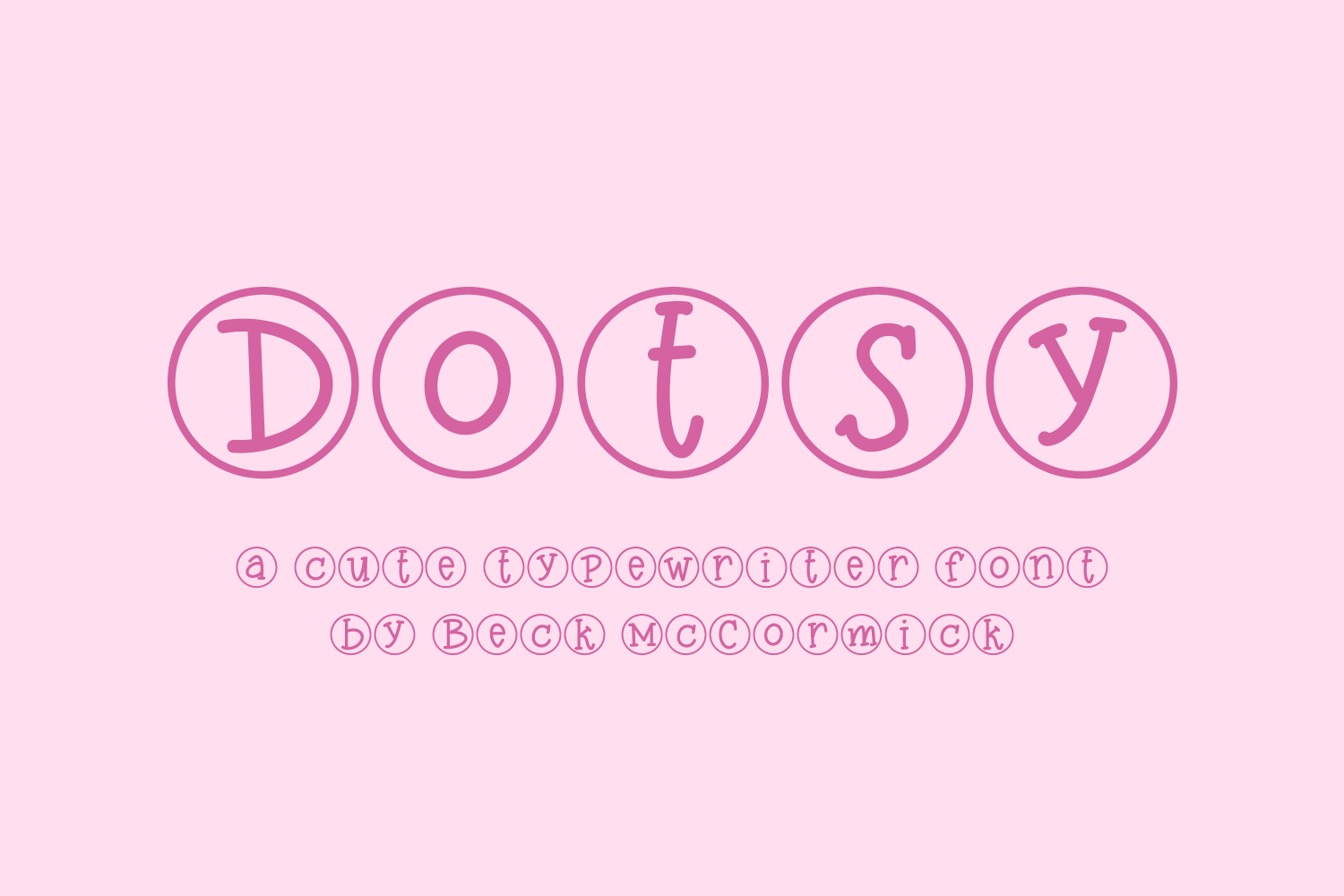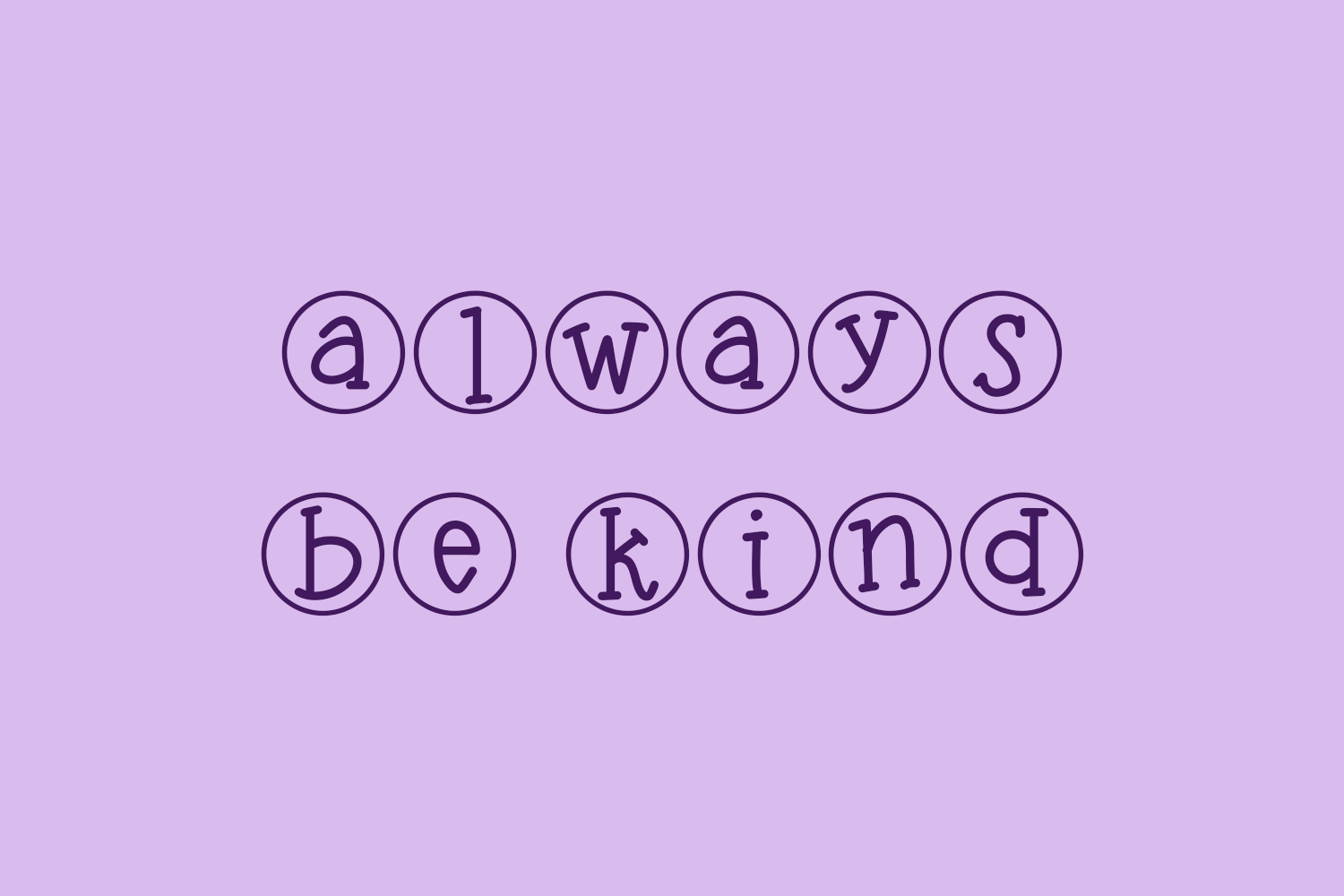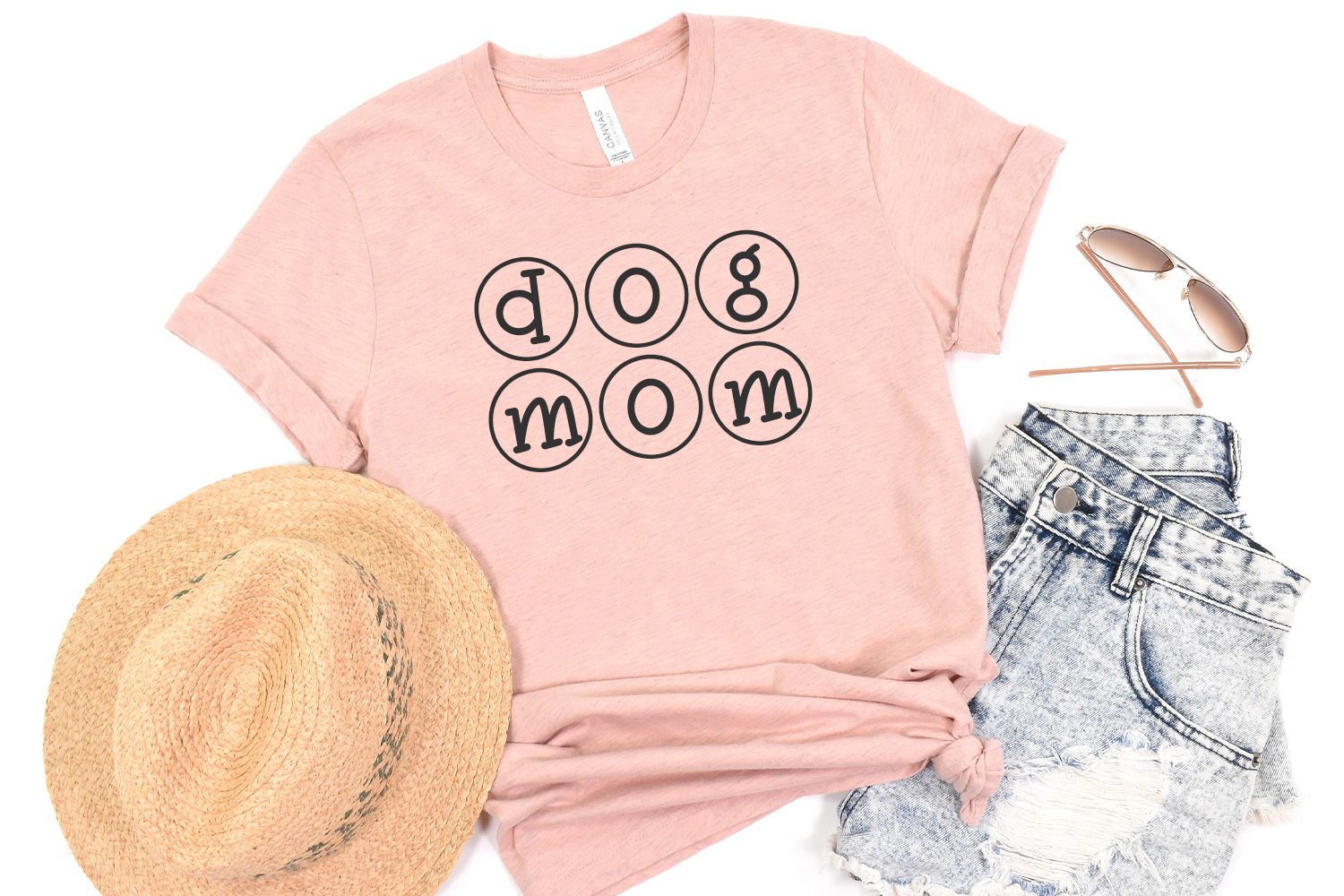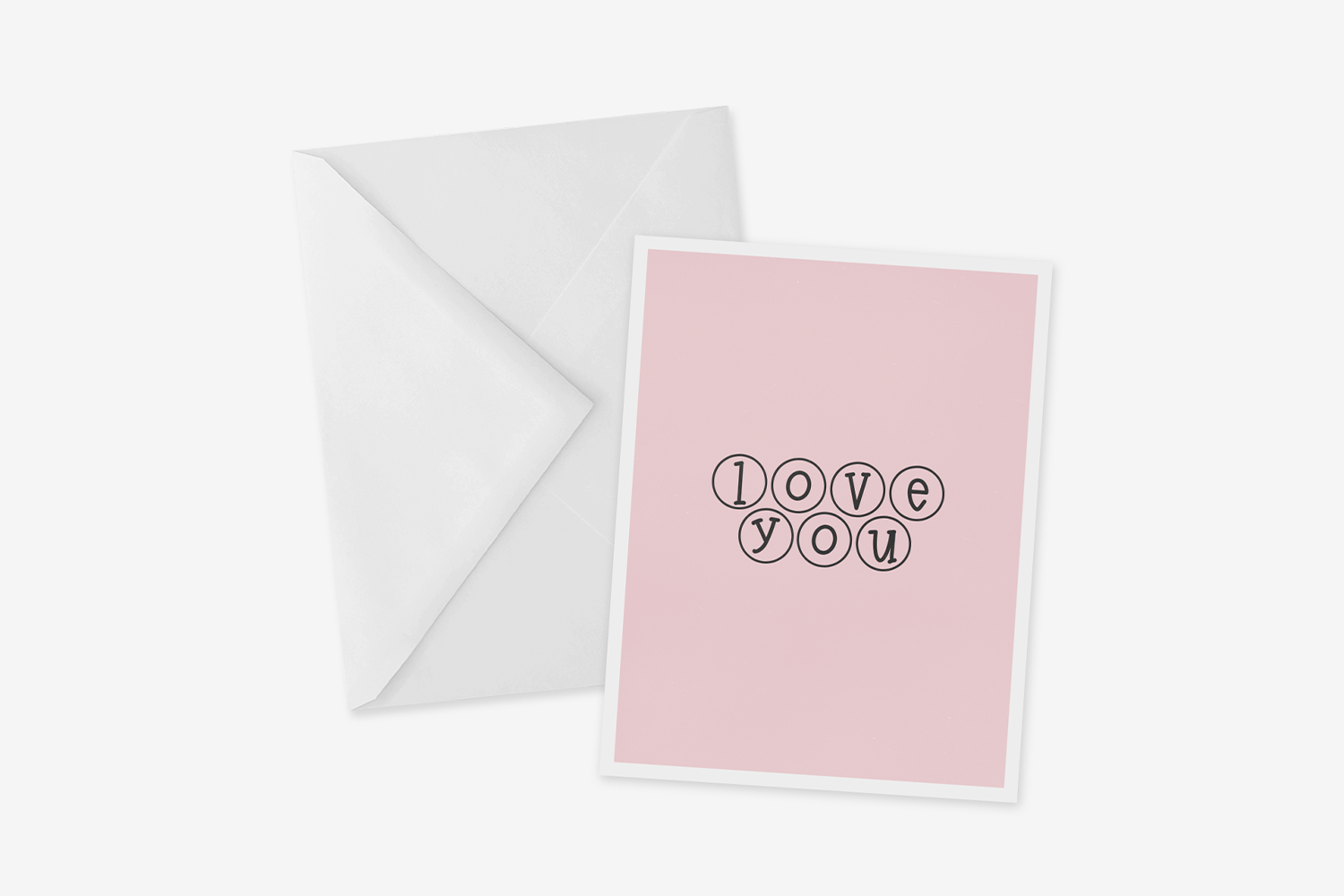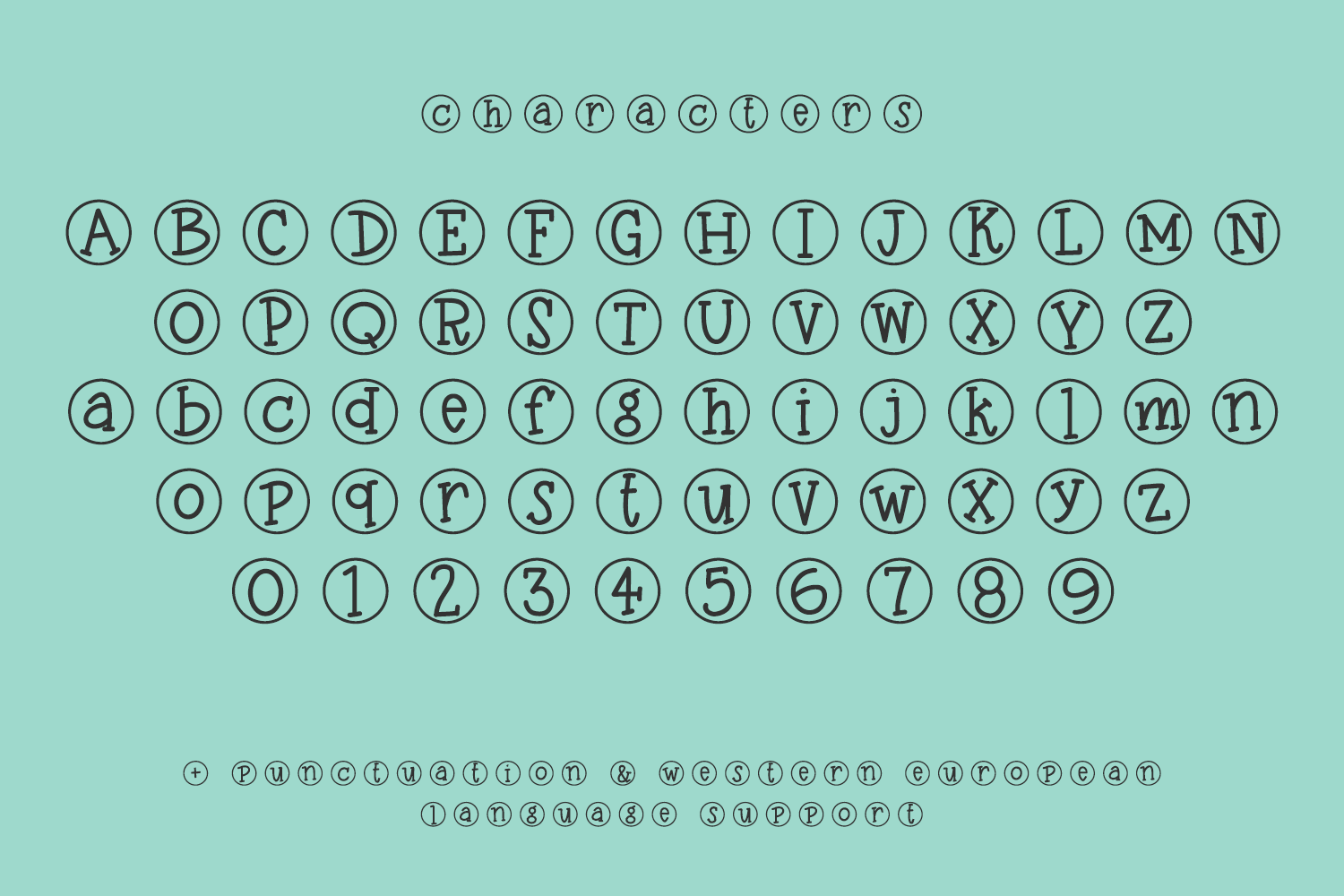
Dotsy Typewriter Font
Introducing Dotsy Typewriter, a cute handwritten serif font enclosed in circles. Dotsy is an adorable decorative font that can be used for crafting purposes, shirt designs, and more.
– Western European language support – English, French, Spanish, Portuguese (Brazil), Portuguese (Portugal), Italian, German (Germany), German (Austria), Dutch, Danish, Swedish, Norwegian (Bokmål and Nynorsk), Finnish, Icelandic, Irish, Welsh